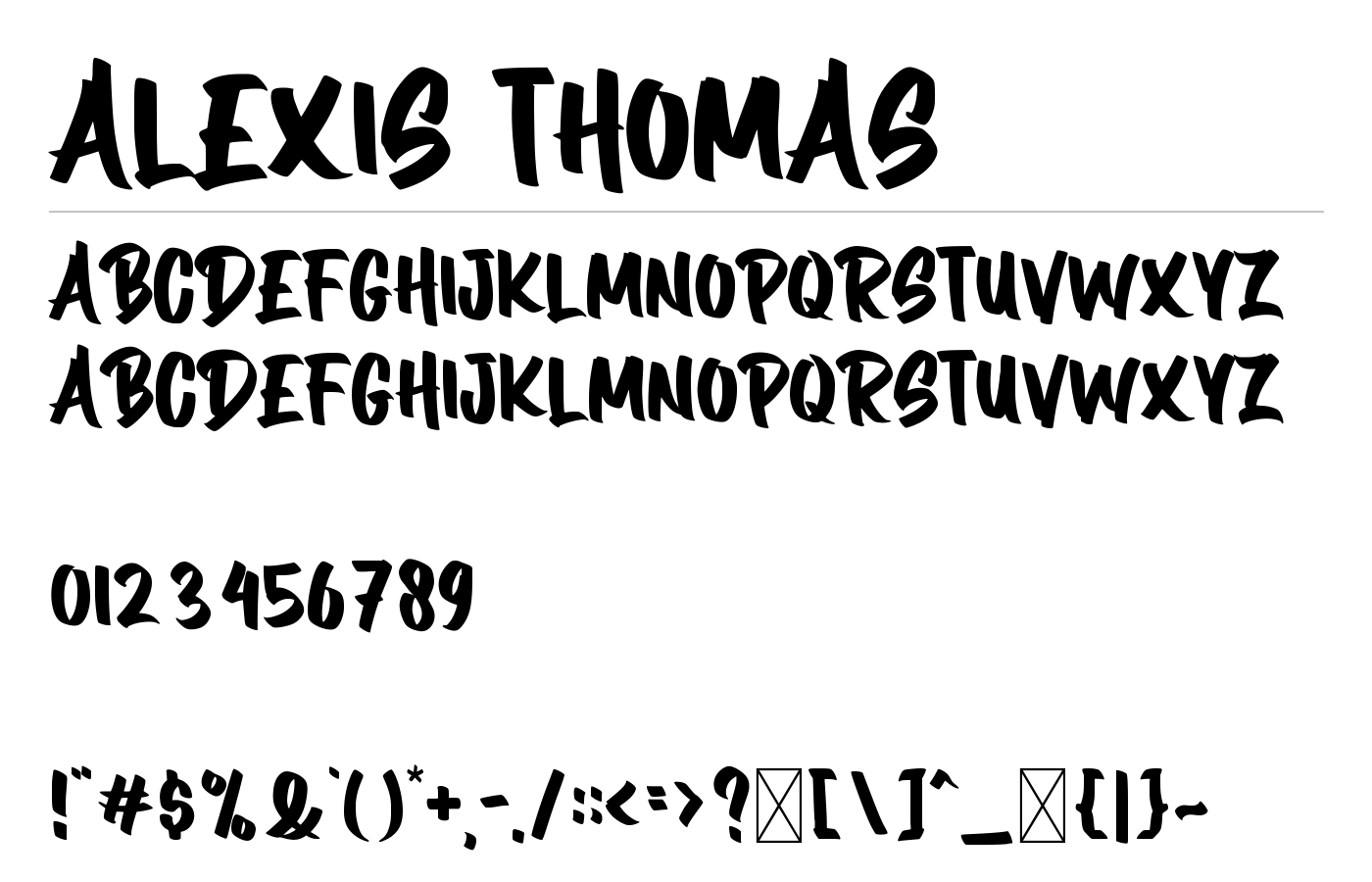
Alexis Thomas is a bold and lively handwritten font with a playful, brush-stroke style that brings energy and personality to any design. Its thick, uneven strokes and large x-height make it highly readable and perfect for attention-grabbing headlines, logos, and creative projects needing a casual yet striking touch. This font works especially well for dynamic branding, posters, and packaging where a fun, informal vibe is desired.
Alexis Thomas Font
About Alexis Thomas Font
| Font family | Alexis Thomas Font |
| Designer | M Arif Dwi Prasetyo & Eko Nurcahyo |